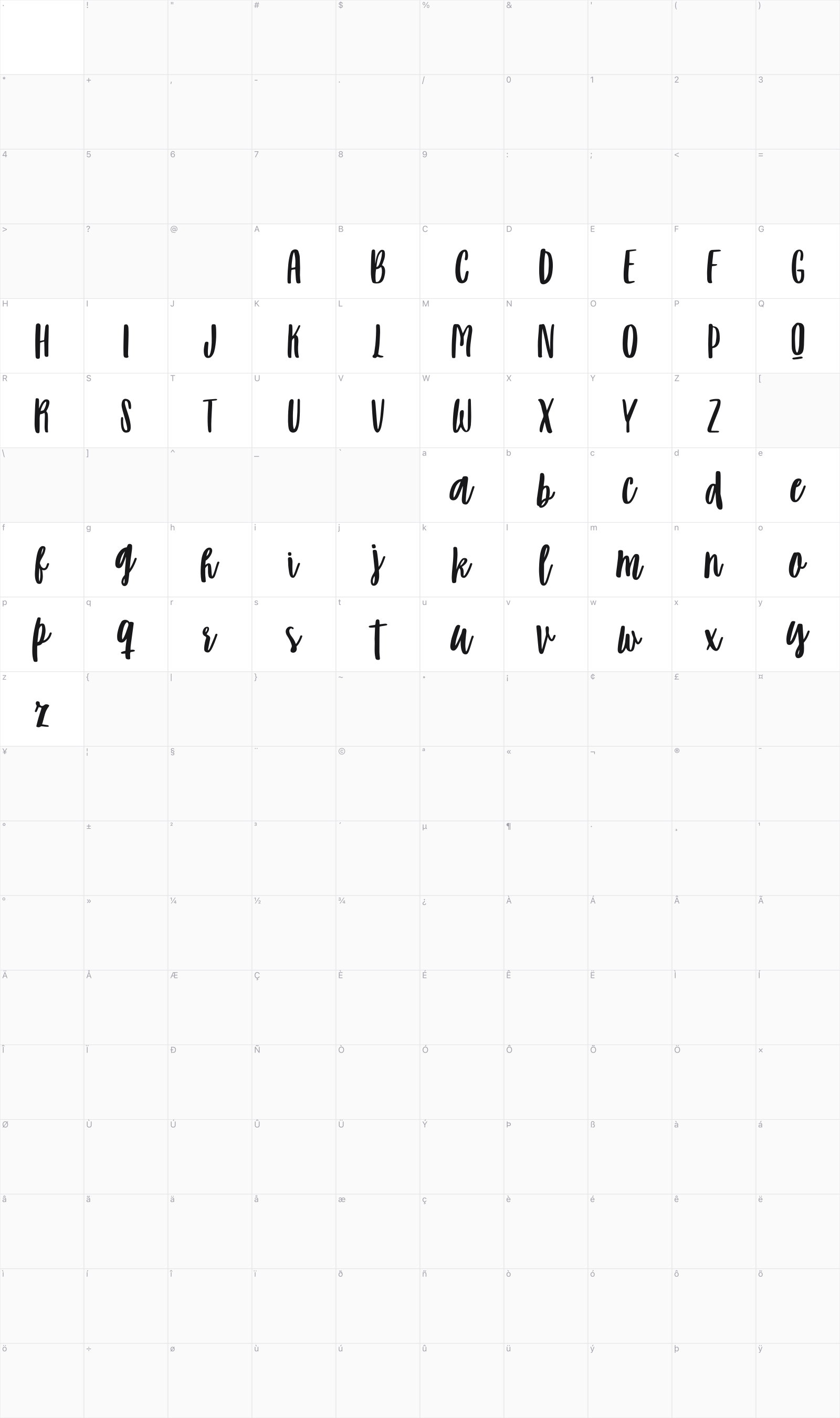
Wonsmith
Wonsmith is a bold brush lettering face by Katsia Jazwinska with thick, confident strokes that feel like they were laid down in one quick pass. The letterforms have a natural, organic texture that keeps things casual and modern without losing readability, making it a strong pick for headlines, packaging, and branding where you want something that feels hand-lettered but intentional.